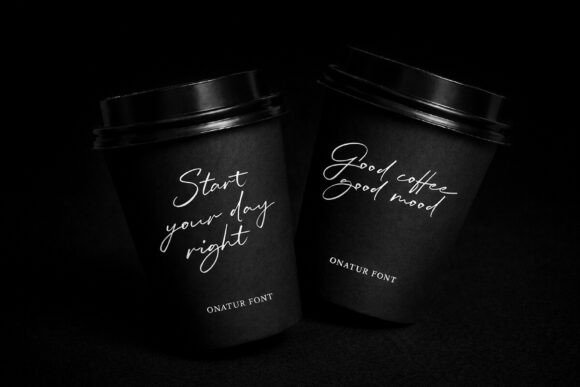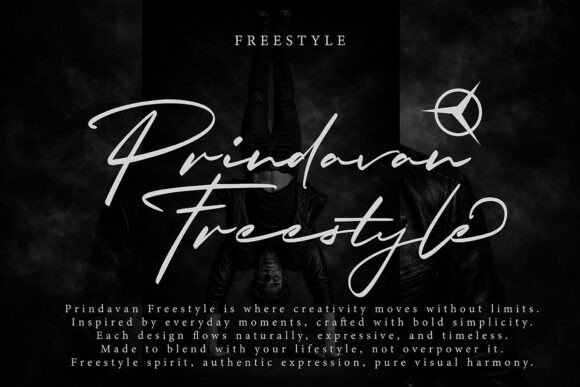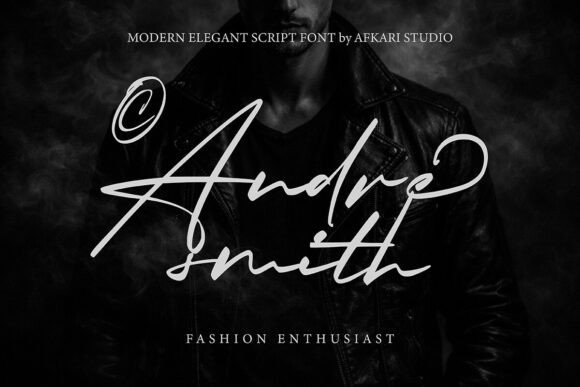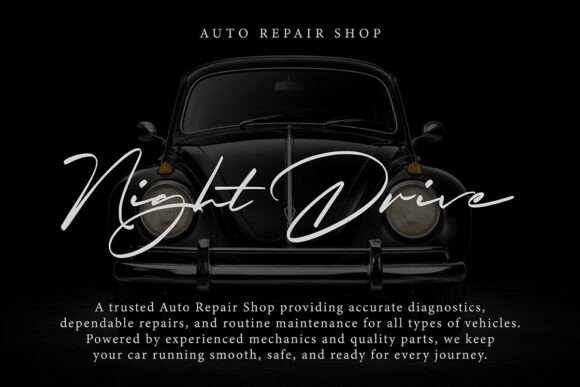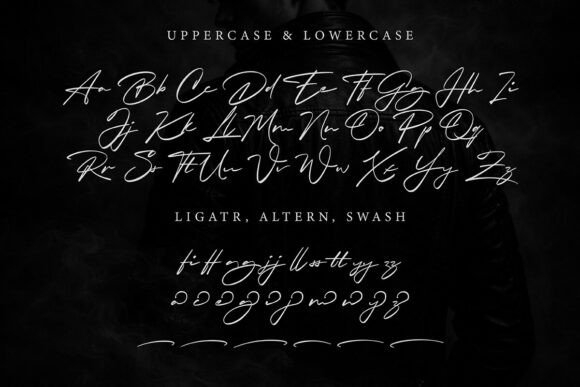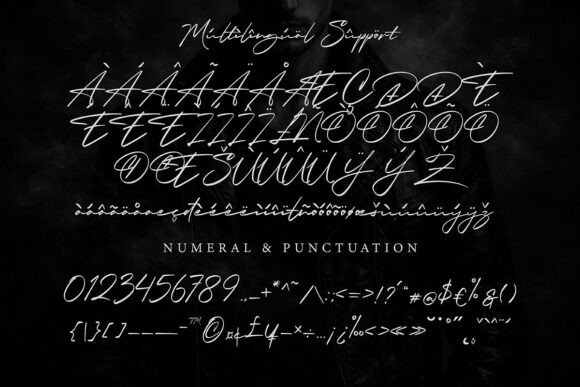
Introduction to Onatur Font
Onatur is a modern handwritten signature script font crafted to create elegant, natural, and stylish typography.
Inspired by authentic handwriting, this font delivers smooth strokes and flowing letterforms that add a personal and professional touch to any design Perfect for branding and signature-style layouts, Onatur combines readability with graceful handwritten movement, making it ideal for both digital and print projects.
Key Features of Onatur Font